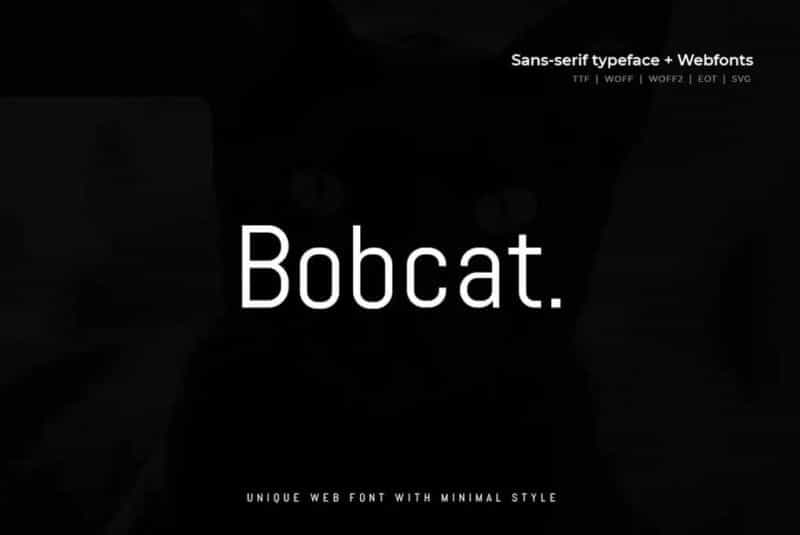
Discover Bobcat Modern Typeface, part of the Sans Serif collection—a versatile and unique font perfect for adding a personal touch to your projects. Download it for free and enjoy crafting designs with style, from invitations to social media posts. This font is available exclusively for personal use, giving you the freedom to create without limits. Unlock your creativity with Bobcat Modern Typeface today!
Bobcat is a clean and simple sans serif font, Bobcat Sans can maintain minimalism at its peak and is an ideal font for Creative and Elegant typography works with different typography.